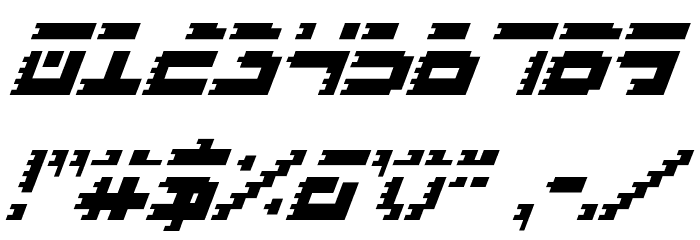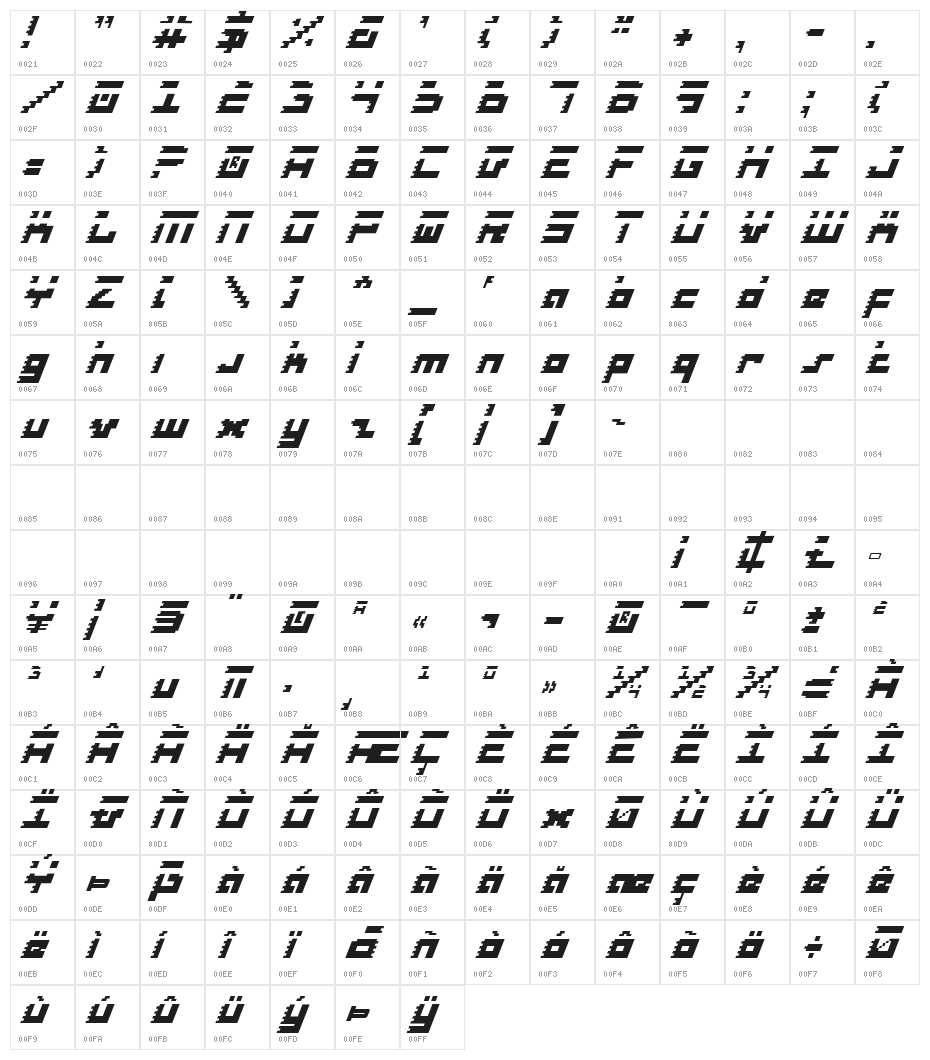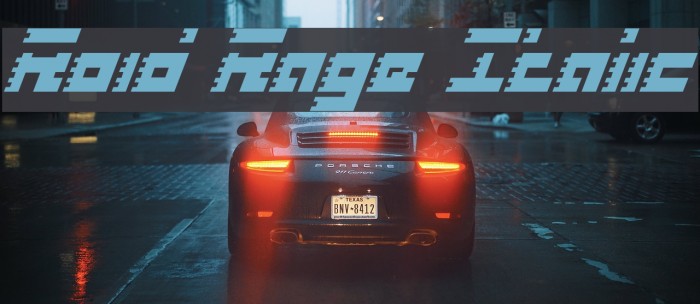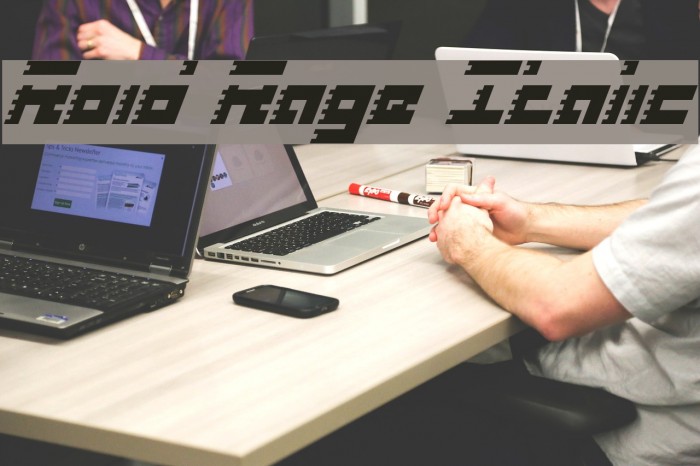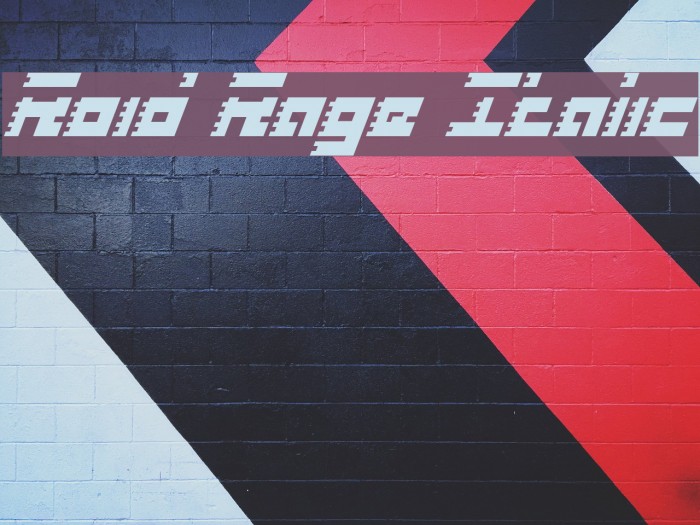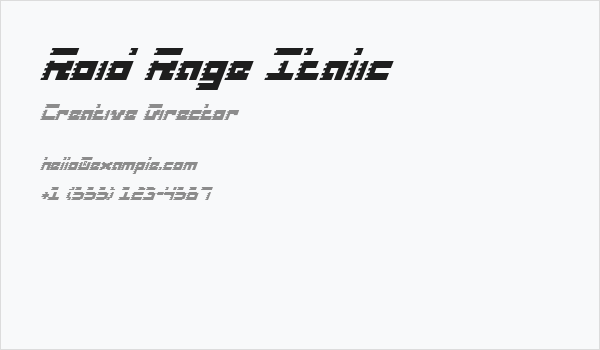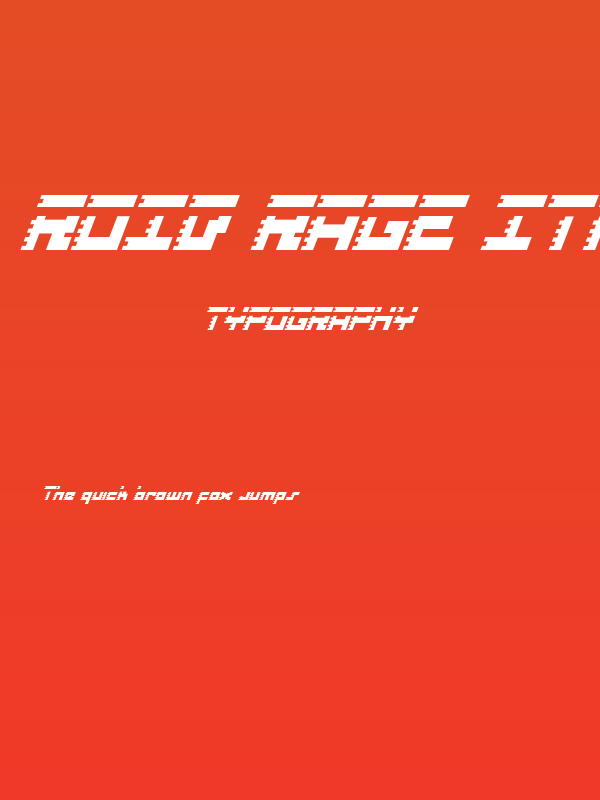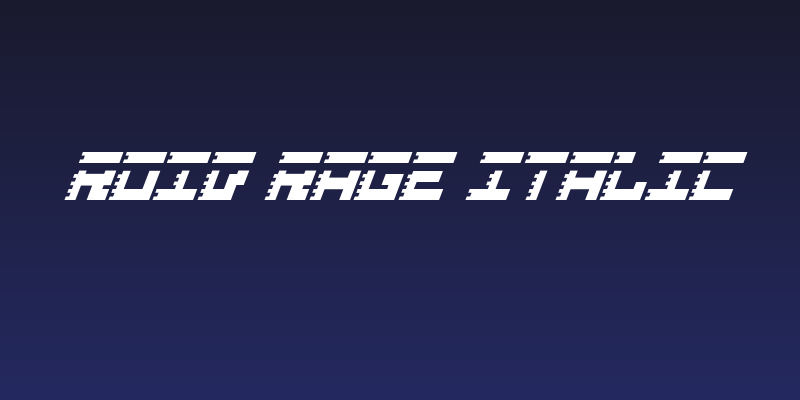
Roid Rage Italic Font
Roid Rage Italic Description
This font features a bold, angular design with a distinct italic slant, giving it a dynamic and aggressive appearance. The characters are constructed with sharp, geometric edges and a pixelated style that evokes a retro, digital aesthetic. The uppercase and lowercase letters maintain a consistent height, enhancing readability while preserving the font's unique style. Numbers and special characters are designed with the same angular precision, ensuring uniformity across all glyphs. The overall look is reminiscent of early video game graphics, making it ideal for projects that aim to capture a sense of nostalgia or futuristic themes.
| Overall Style | Retro, Futuristic |
| Use Case | Logos, Posters, Headlines |
| Proposed Projects | Ideal for video game graphics, tech-themed posters, or retro digital art projects. |